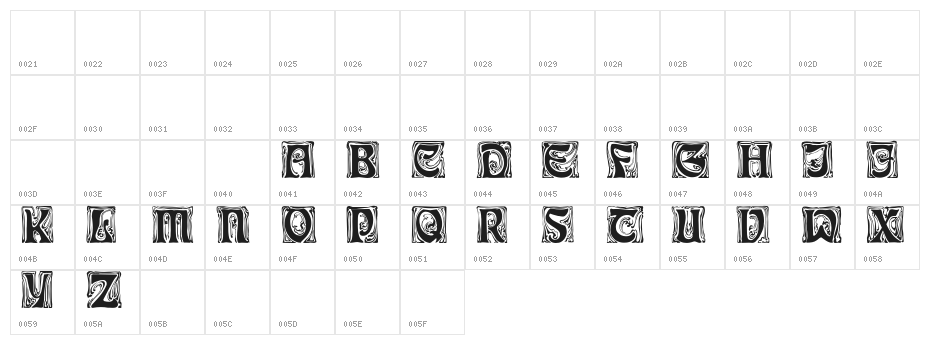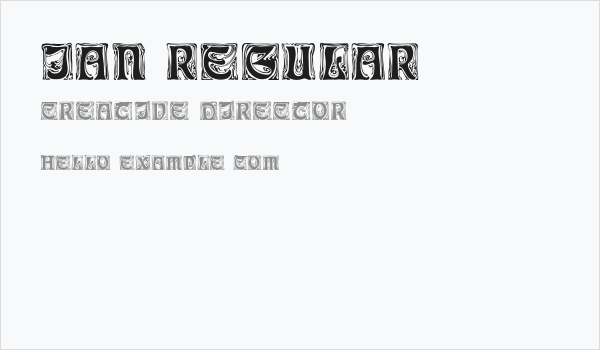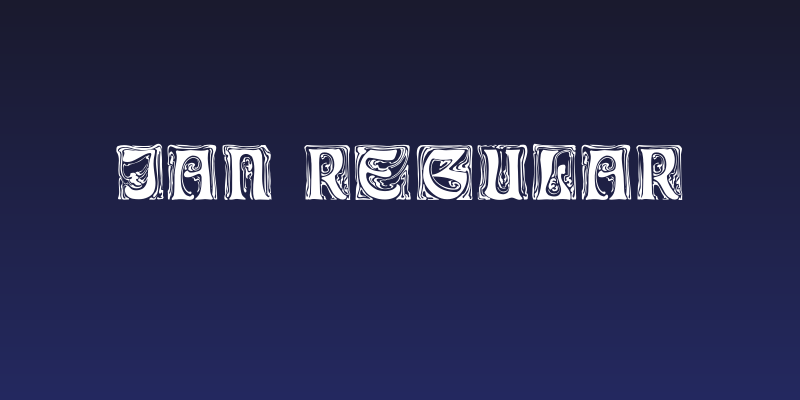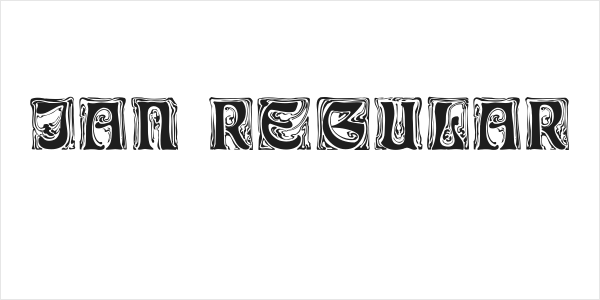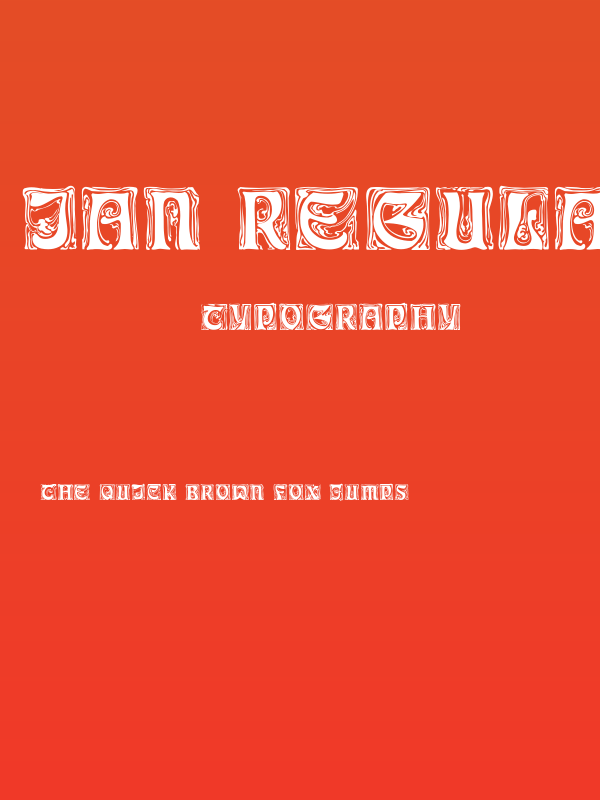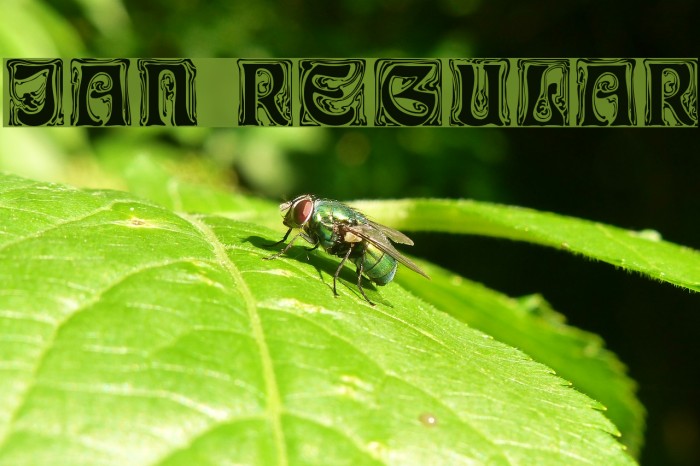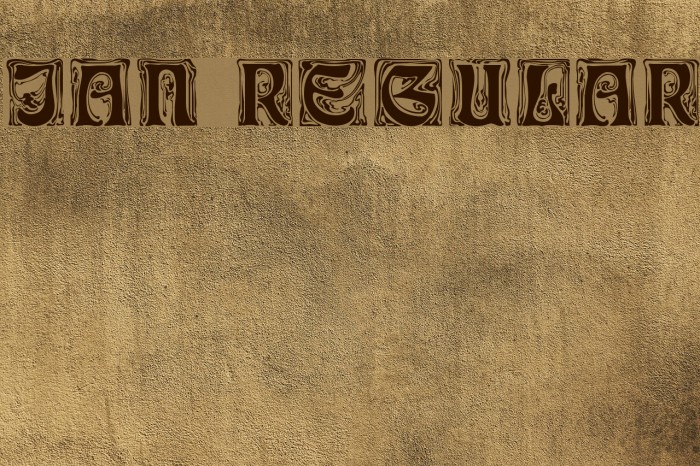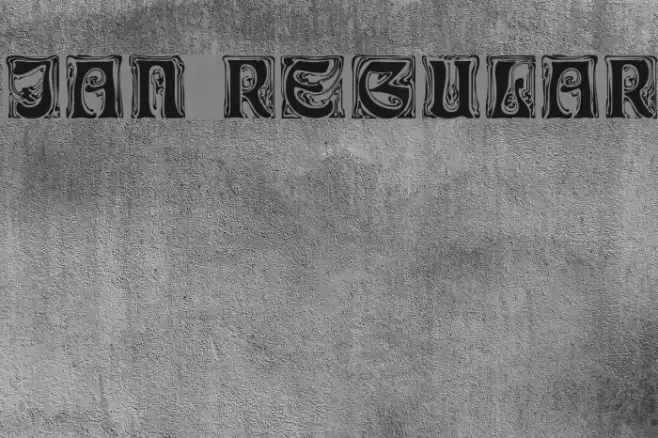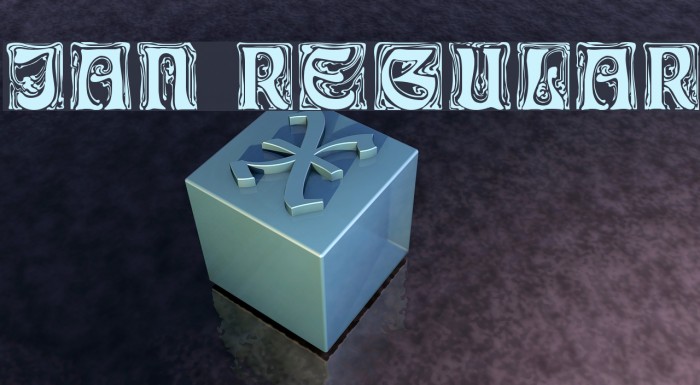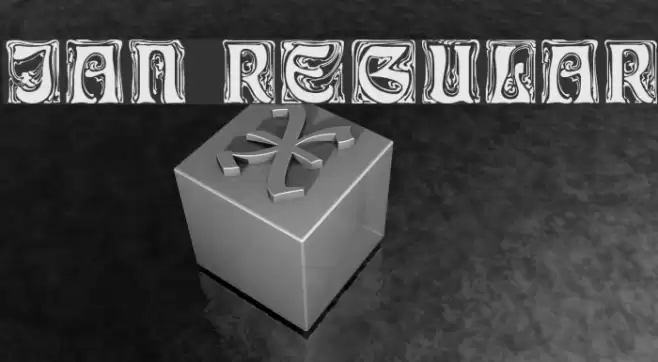
Ian Regular Font
Ian Regular Description
This font features a highly decorative and intricate design, characterized by swirling patterns within each letterform. The bold, block-like structure of the characters is complemented by the ornate detailing, creating a striking visual effect. The font maintains a consistent weight across all characters, with a strong emphasis on the decorative elements that fill the interior spaces of each letter. This style is reminiscent of vintage or psychedelic art, making it stand out with its unique and artistic flair. The overall appearance is both bold and artistic, suitable for projects that require a distinctive and eye-catching typeface.
| Proposed Projects | Ideal for album covers, posters, branding for creative industries, and any project needing a bold artistic touch. |